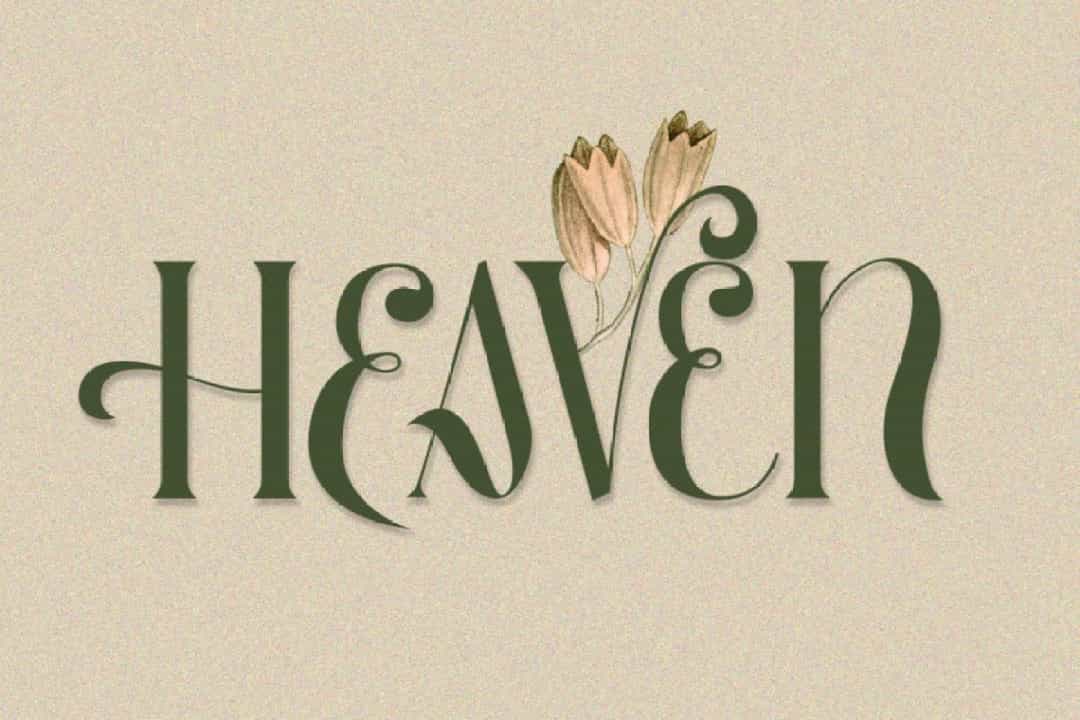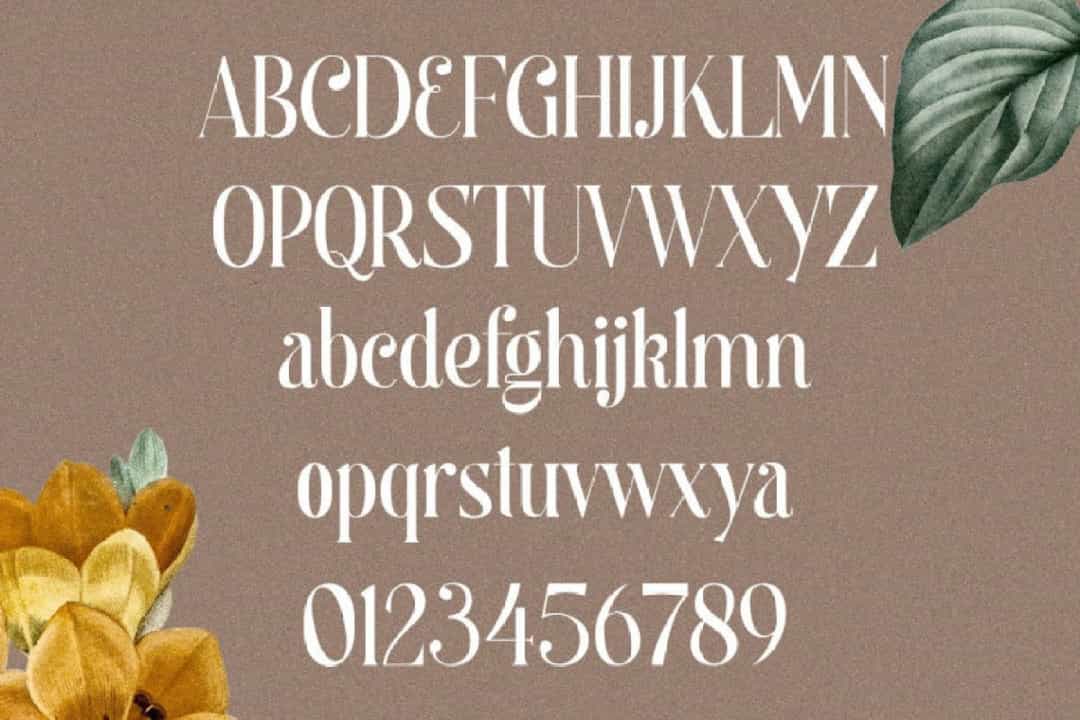
Begova can be described as an elegant and classic display serif font with elegant stylistic alternatives, perfect for use as a display type in logos, headings, magazines, branding campaigns, packaging design and invitations.